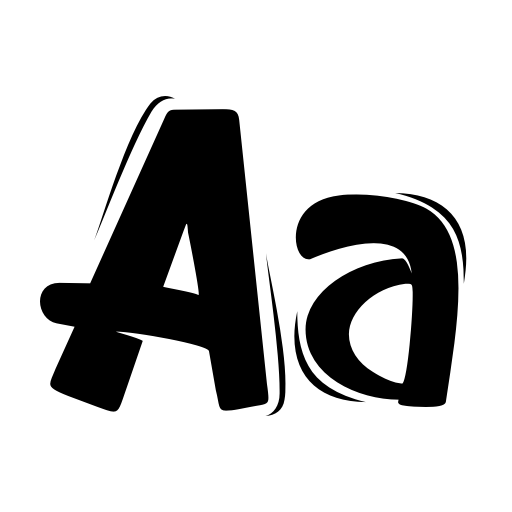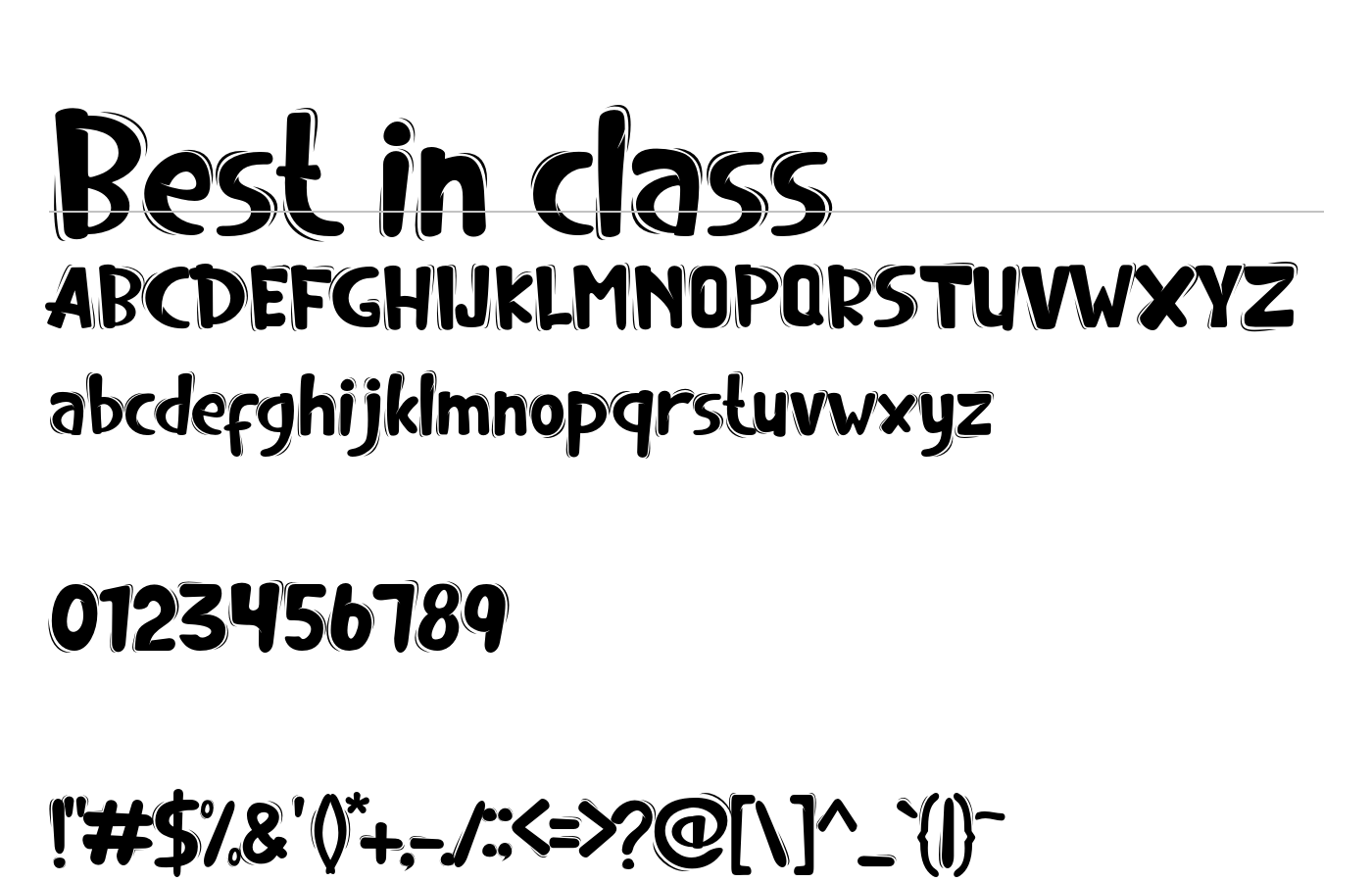
Best in class Font is a playful, bold sans serif with a hand-drawn feel, featuring rounded shapes and slightly irregular strokes that give it a lively, casual character. Its thick weight and wide proportions make it perfect for fun headlines, posters, and branding that aims to feel approachable and energetic. Ideal for creative projects and informal designs, this font adds a unique, friendly personality wherever it’s used.
| Font family | Best in class Font |
| Designer | Sya'dan Ismail Rosyad |